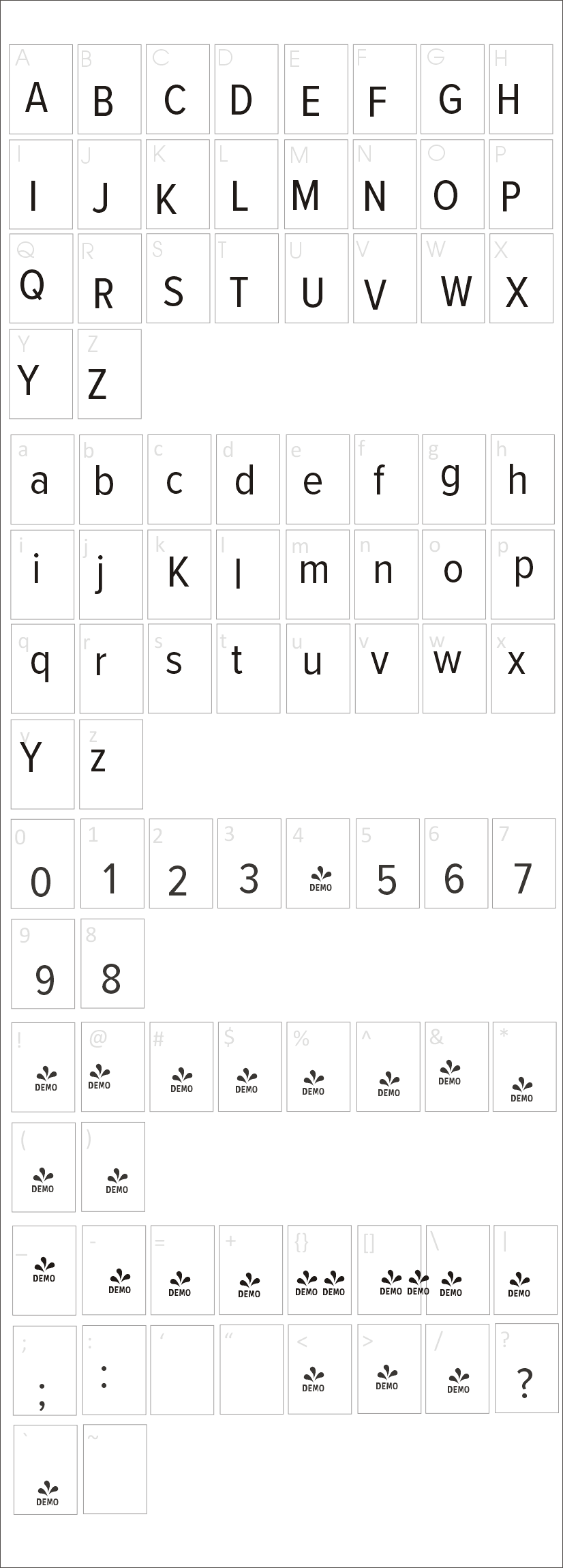
| Font Name: | Proxima Nova |
| Font Designer: | Mark Simonson |
Proxima Nova is a renowned font family known for its clean lines, geometric shapes, and modern aesthetic. Designed by Mark Simonson, Proxima Nova is a versatile typeface that is widely used in a variety of applications, from branding and signage to print and digital media.
Key Features of Proxima Nova Font Family:
- Geometric Design: Proxima Nova’s letterforms are based on geometric shapes, creating a strong and consistent visual impact.
- Modern and Versatile: The font’s contemporary style and versatility make it suitable for a wide range of projects, from branding and advertising to editorial design and web development.
- Exceptional Legibility: The font’s clear and balanced letterforms ensure easy reading on various screen sizes and devices.
- Wide Character Support: Proxima Nova supports a broad range of languages and characters, making it a global-friendly choice.
- Multiple Weight Options: The font family includes various weight options (e.g., Regular, Bold, Italic), allowing you to find the perfect style for your specific needs.
Uses for Proxima Nova Font Family:
- Branding: Use Proxima Nova for logos, business cards, and other branding materials to create a modern and professional identity.
- Signage: Proxima Nova is often used for signage and wayfinding systems due to its excellent legibility and clear design.
- Print Design: Incorporate Proxima Nova into brochures, flyers, and other print materials to add a touch of modernity and sophistication.
- Web Design: Use Proxima Nova for headlines, body text, and other typographic elements to enhance your website’s visual appeal.
- Corporate Presentations: Proxima Nova’s clean and modern design can help make your presentations more impactful.
Variants:
Proxima Nova Regular
Proxima Nova Thin
Proxima Nova Light
Proxima Nova Bold
Proxima Nova Semibold
Proxima Nova Extrabold
Proxima Nova Black
Proxima Nova Font Family is a versatile and timeless typeface that can elevate your projects’ visual appeal. With its geometric design, modern aesthetic, and wide character support, Proxima Nova is a valuable asset for designers and businesses seeking a refined and professional font.